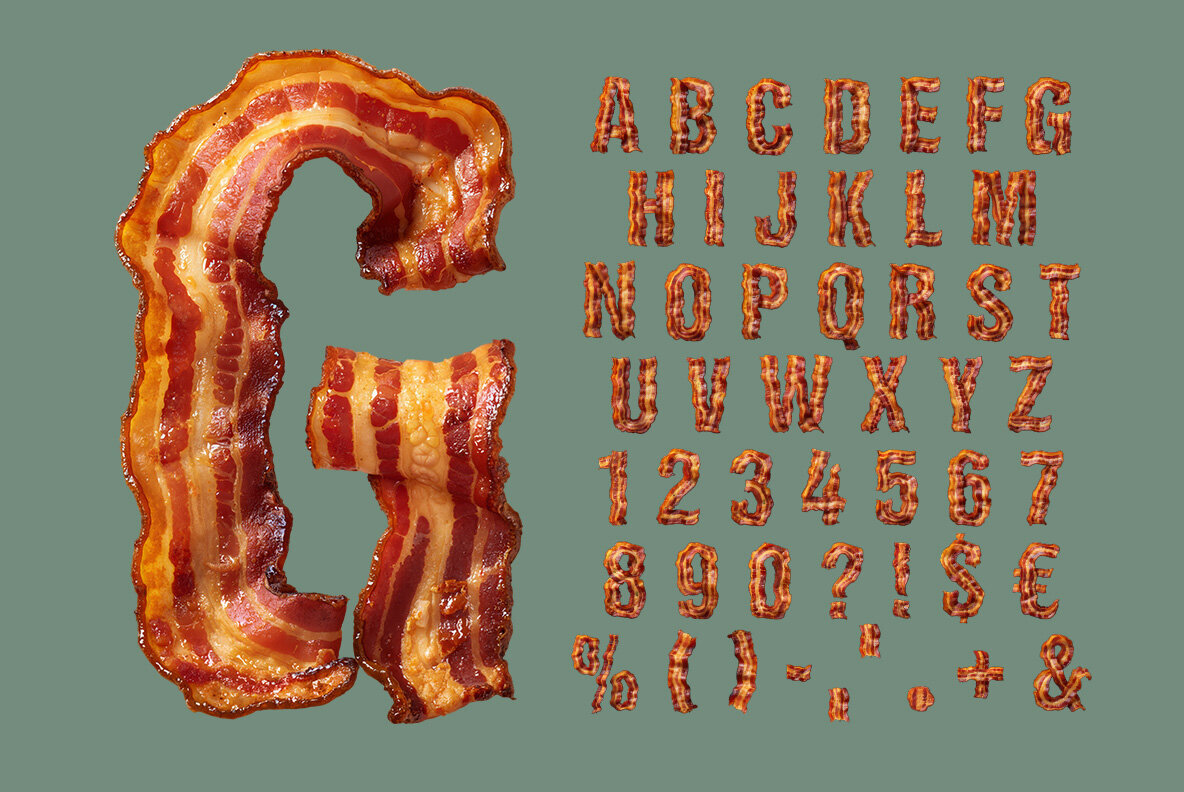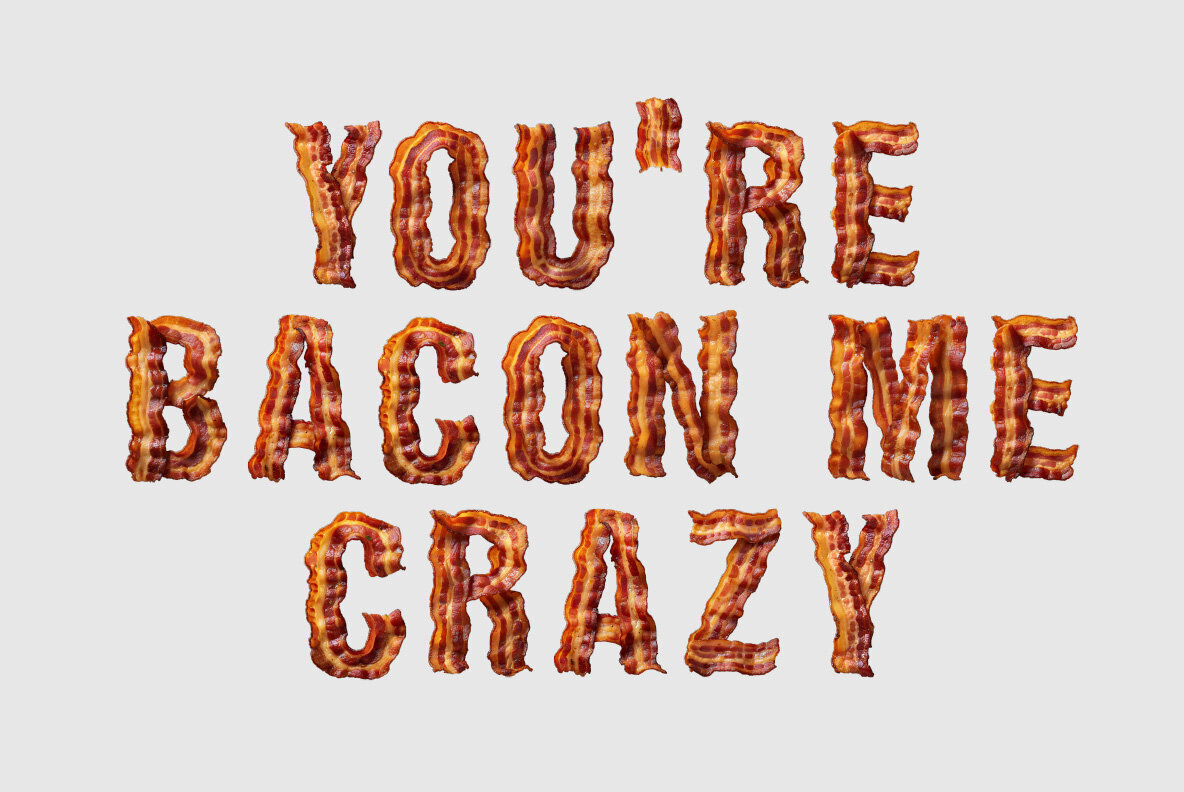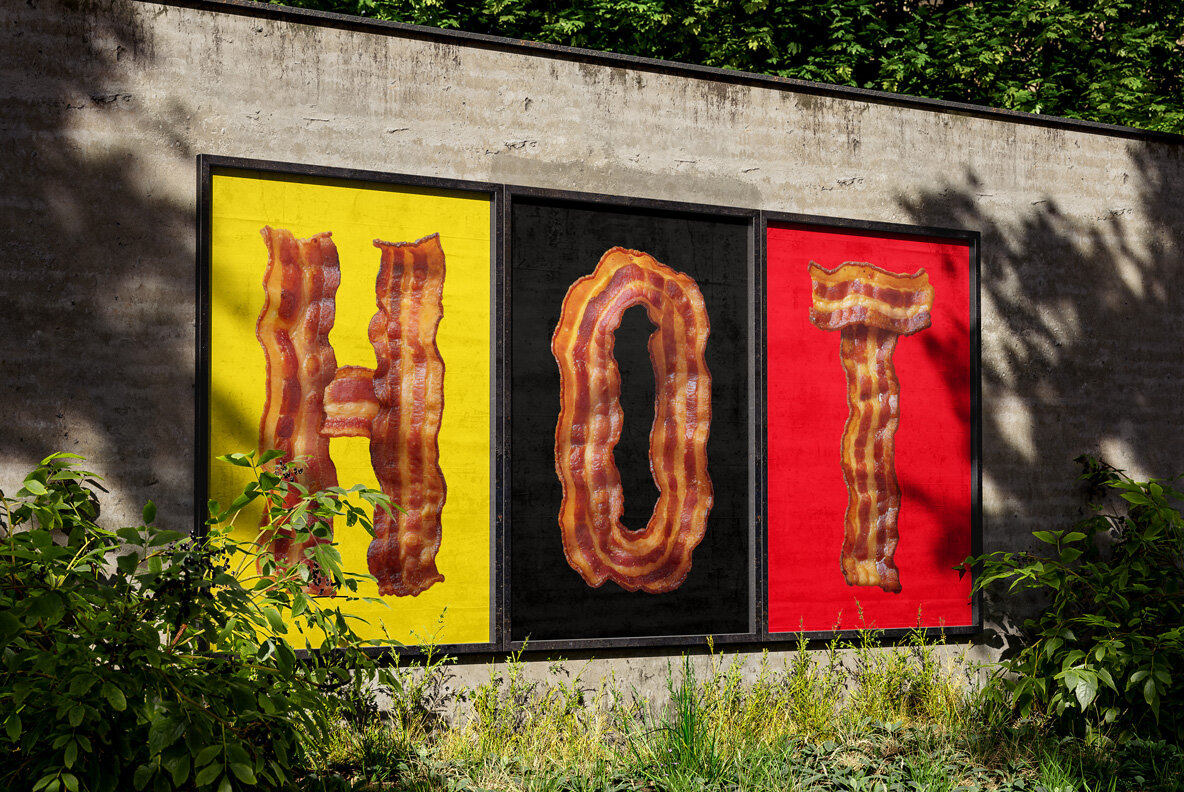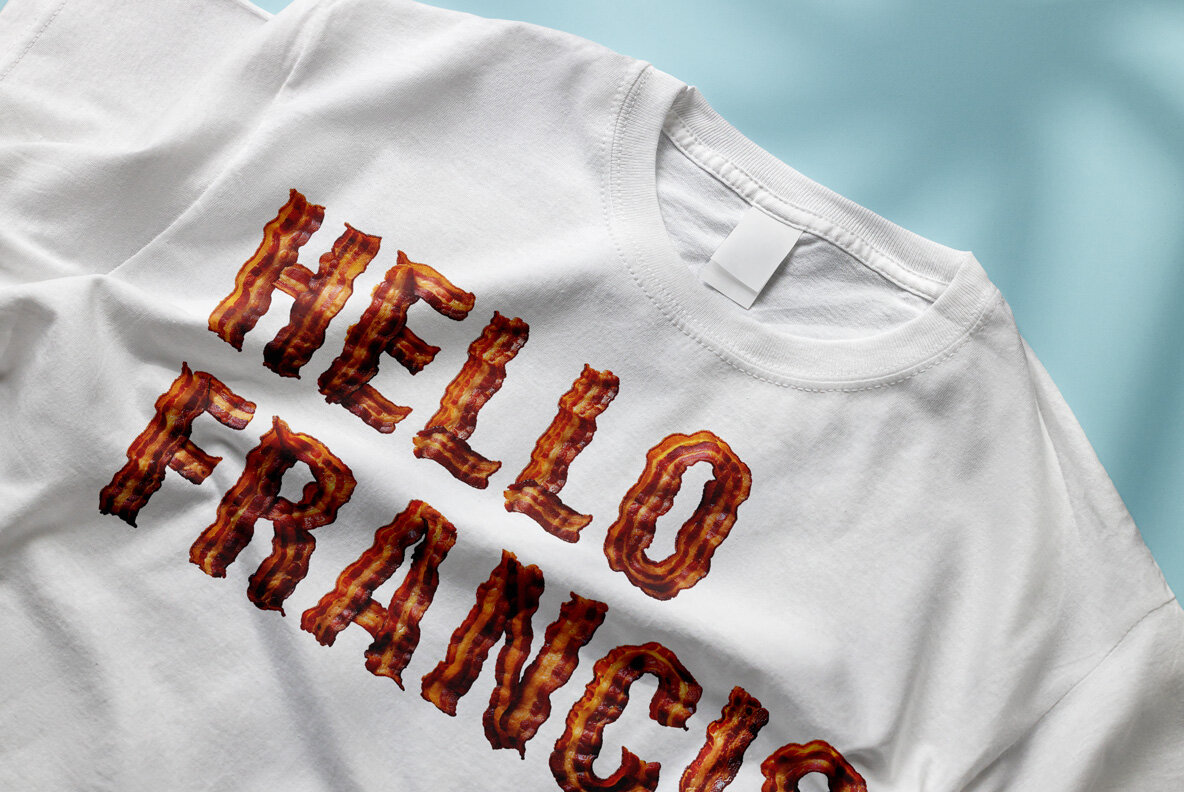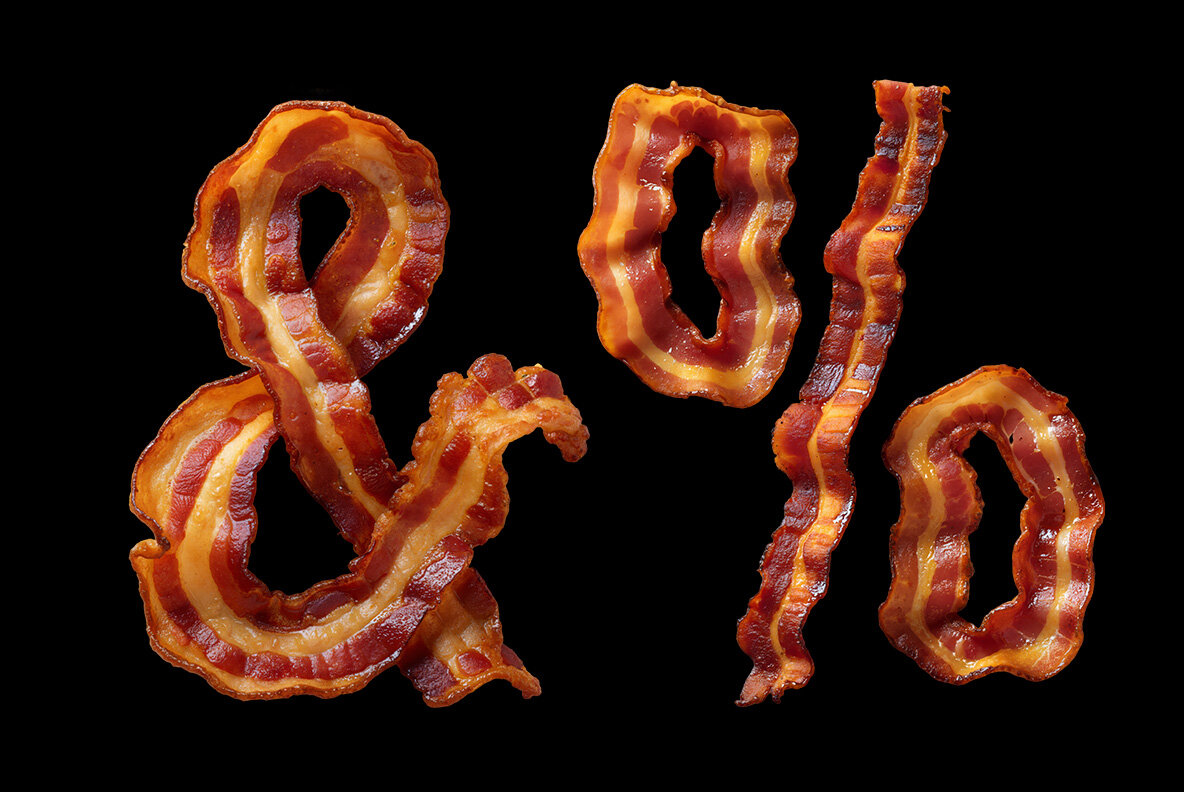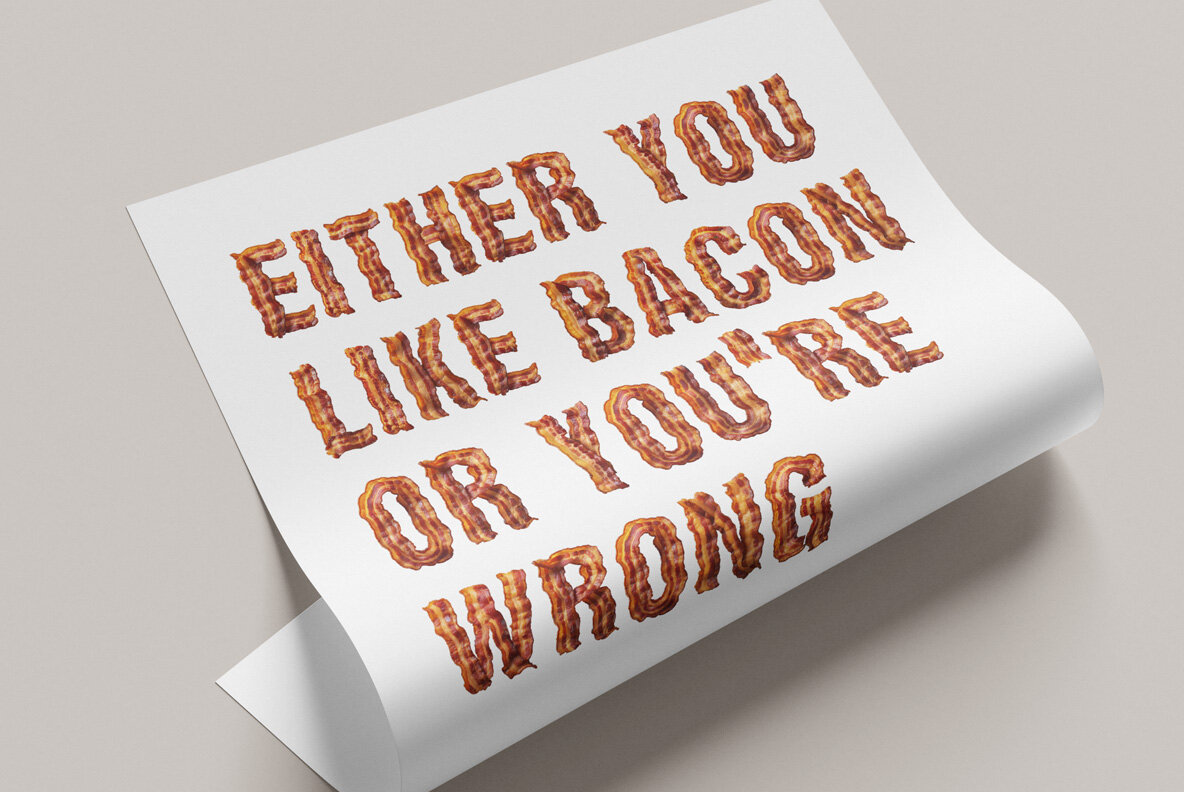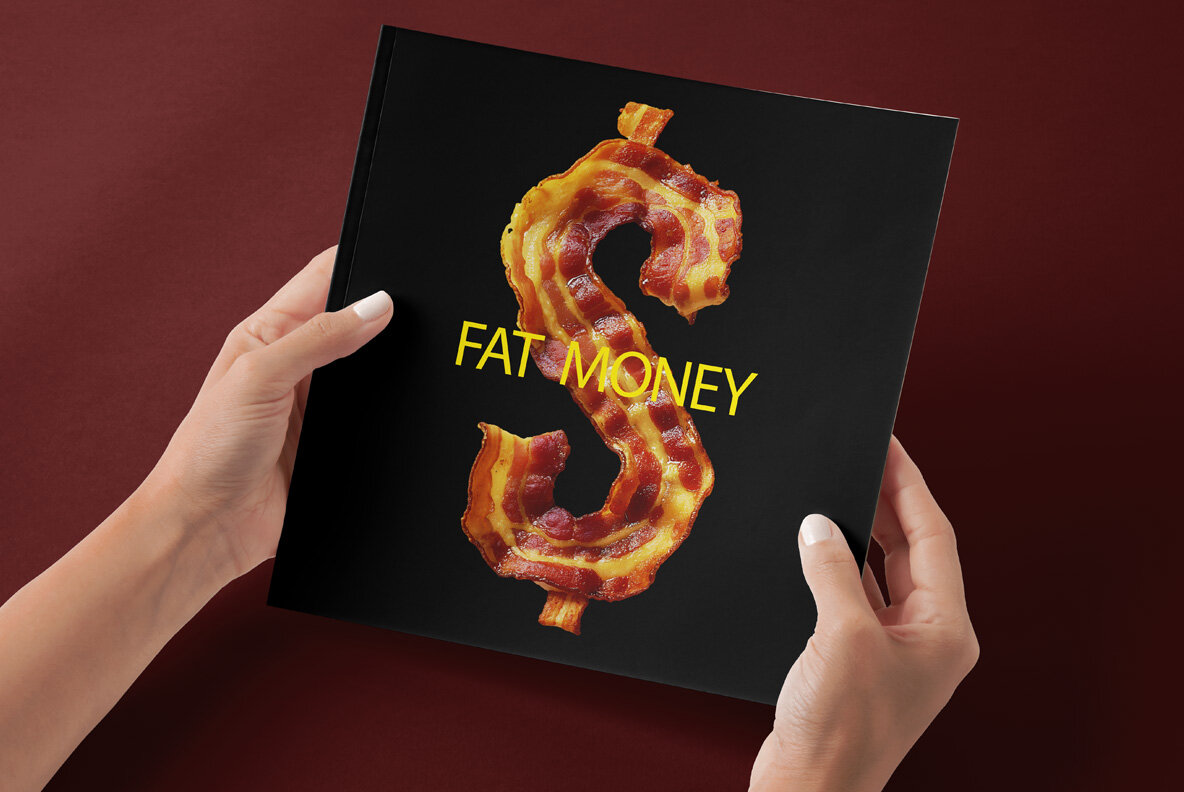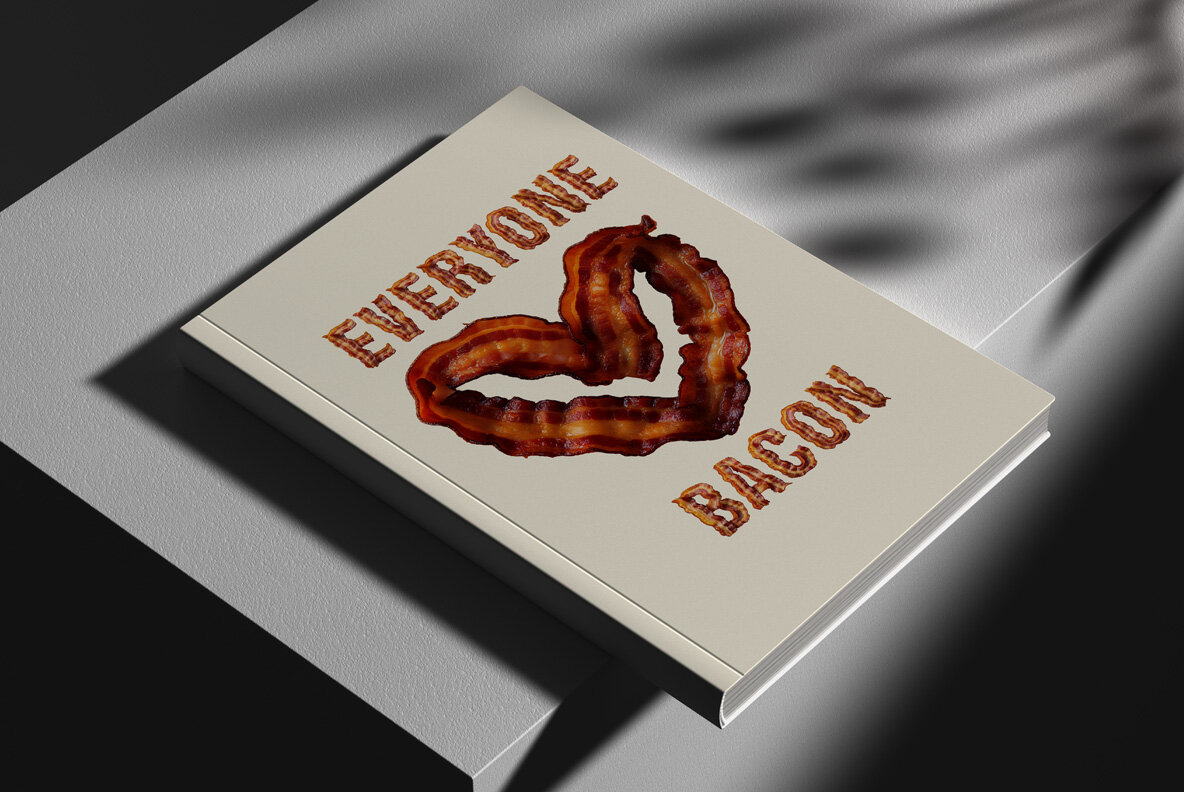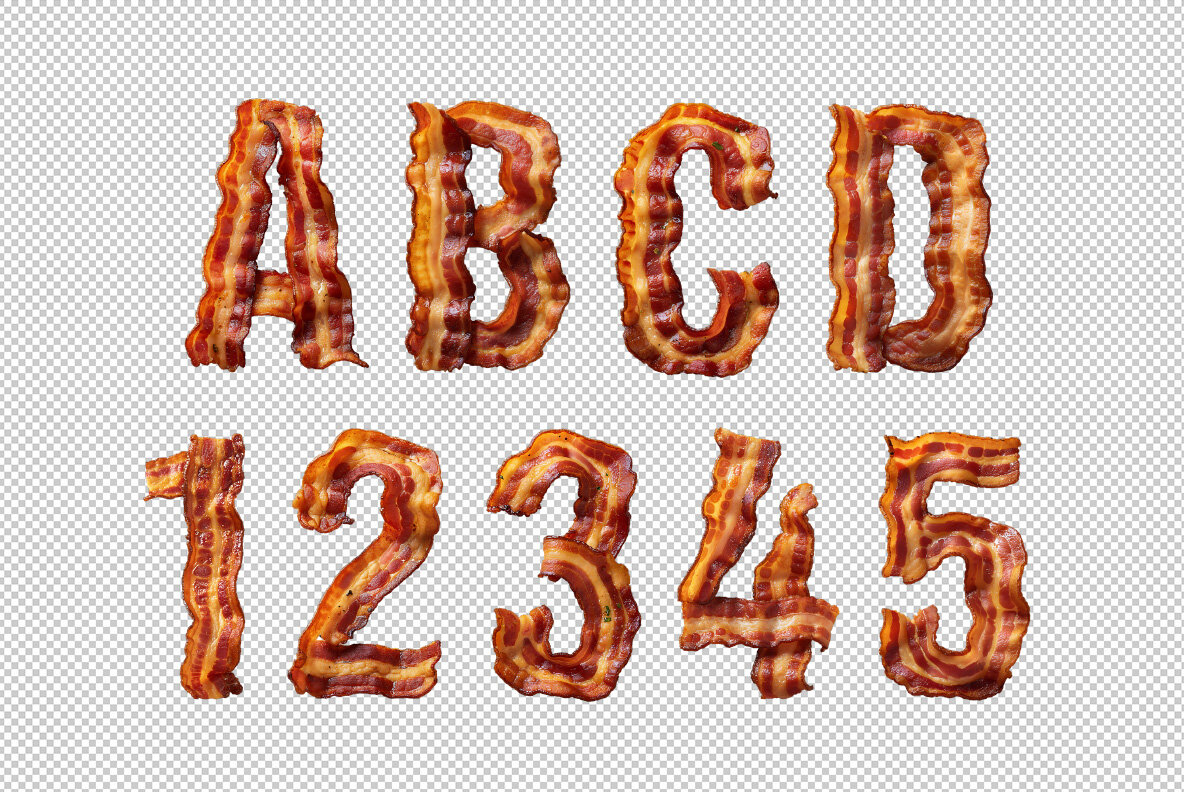
Introducing a font that tantalizes the senses—crispy, sizzling letters designed to evoke the irresistible allure of bacon. This one-of-a-kind typeface brings a savory delight to your creative canvas. Each character exudes the rich, fatty goodness of perfectly fried bacon strips, making it an ideal choice for infusing playful, food-inspired elements into your design projects. The font captures the essence of bacon with every curve, ensuring that your work stands out with a mouthwatering appeal.